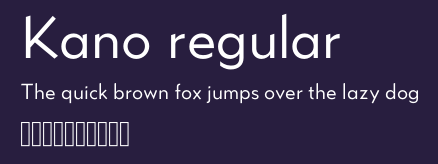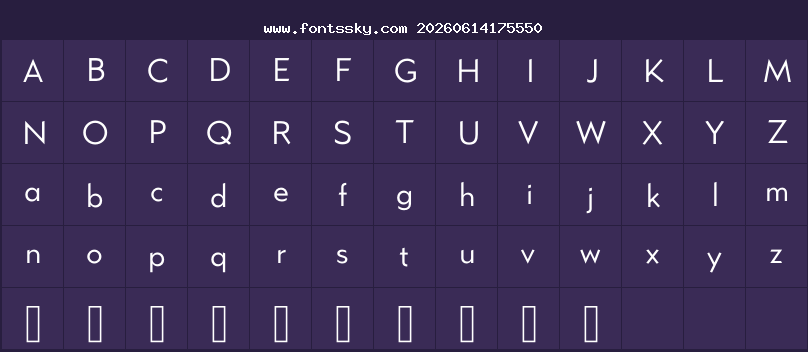
Kano regular Preview
• Font Name: Kano regular
• Full Font Name: Kano regular Regular
About Kano regular.otf
Kano regular.otf is a modern, elegant sans-serif font designed for ultimate readability and visual harmony. Perfect for branding, headlines, web design, and print materials.